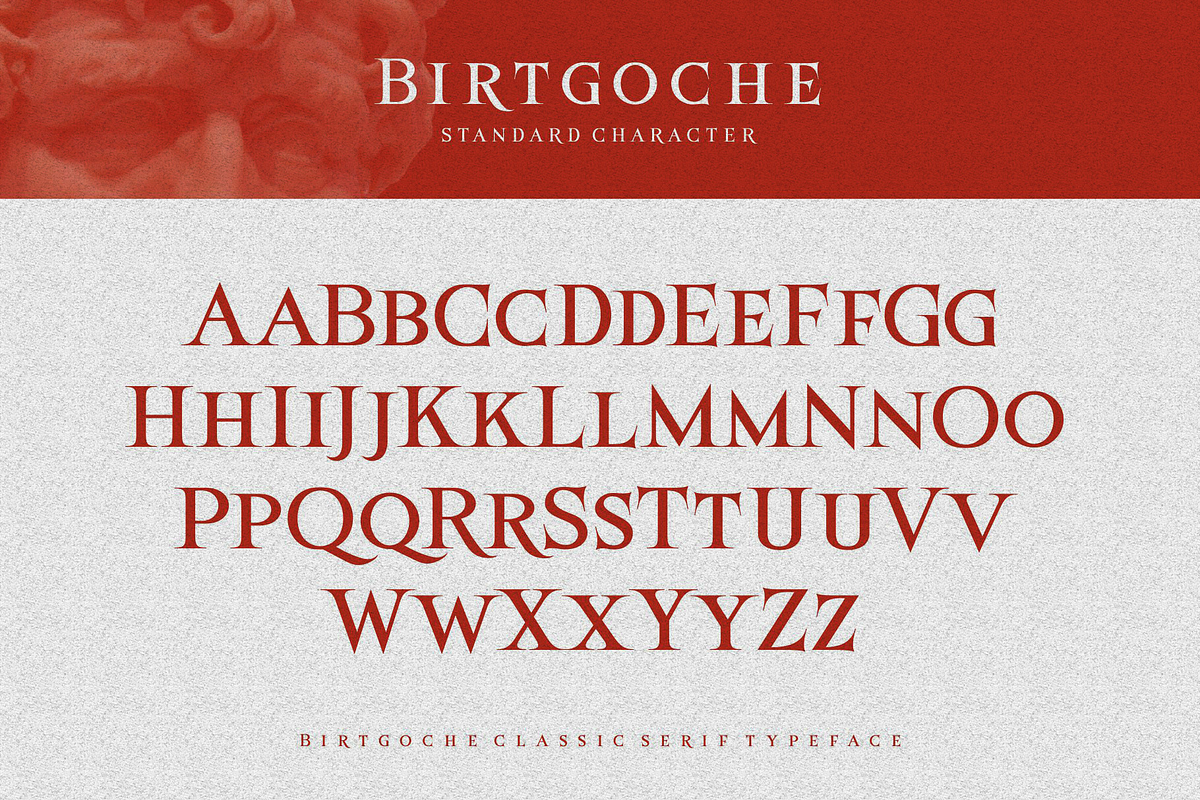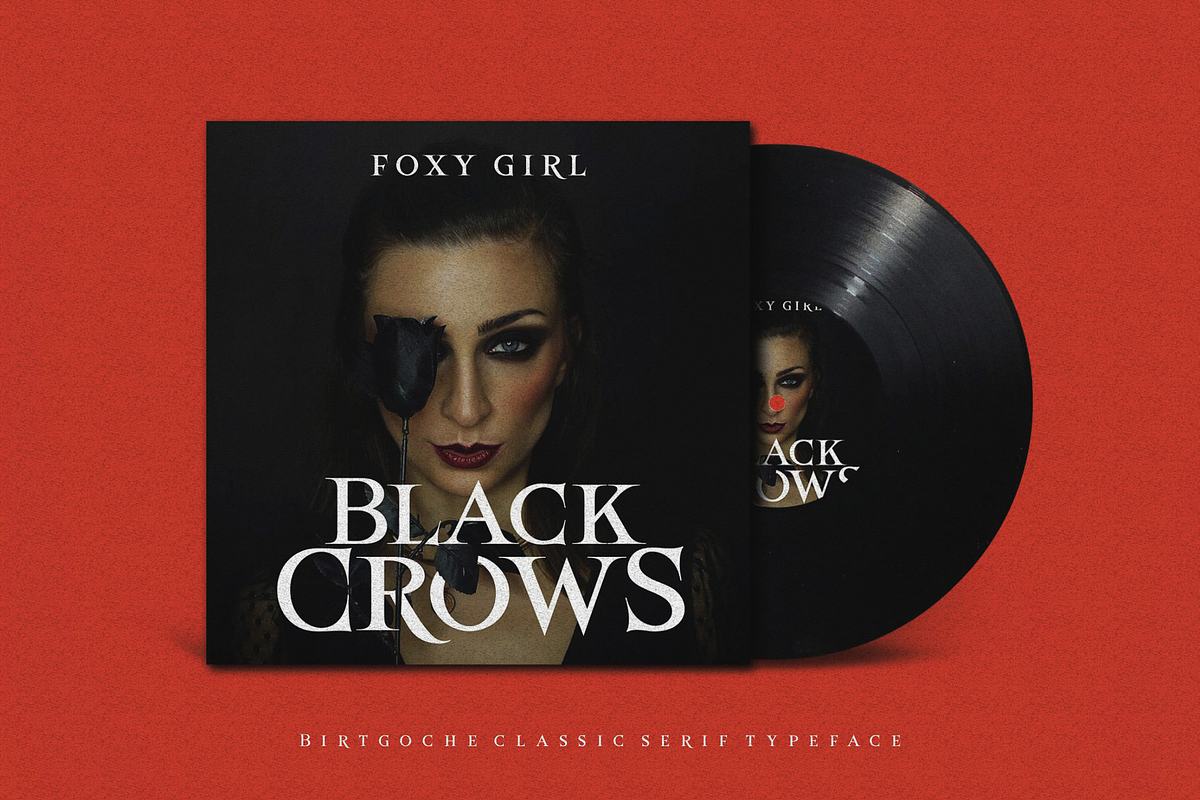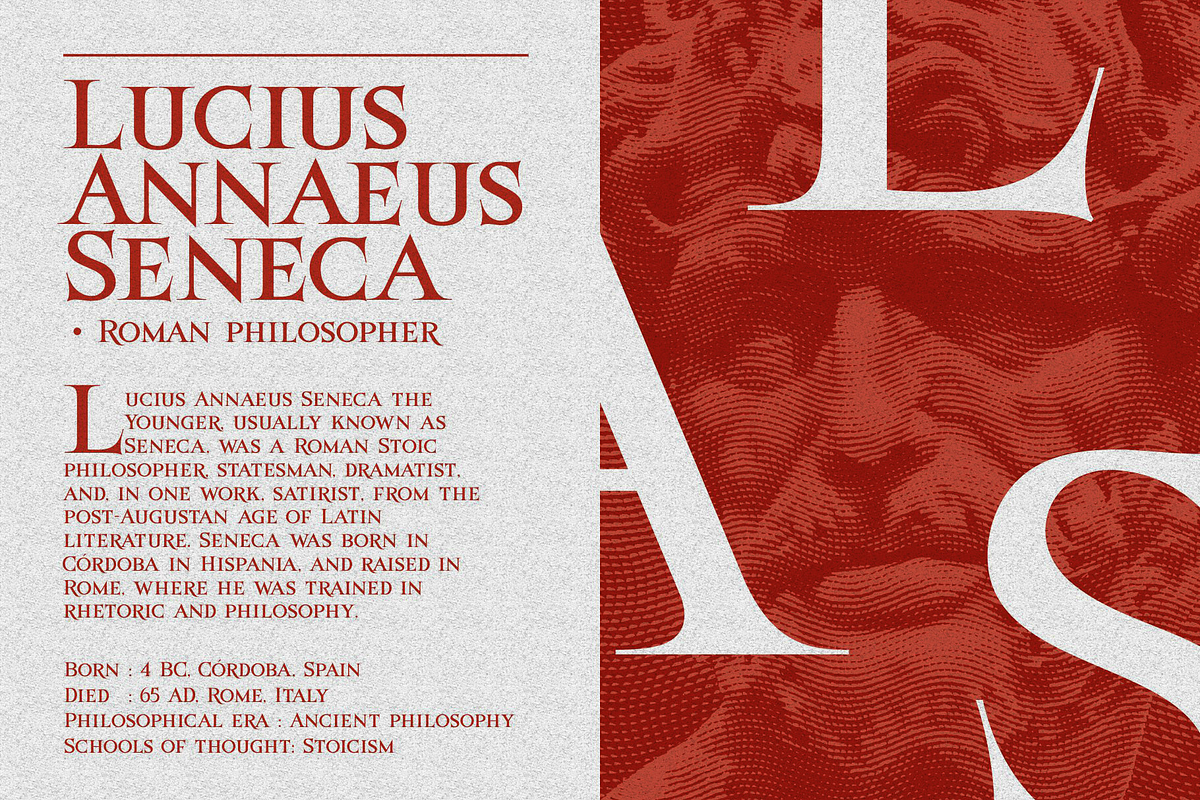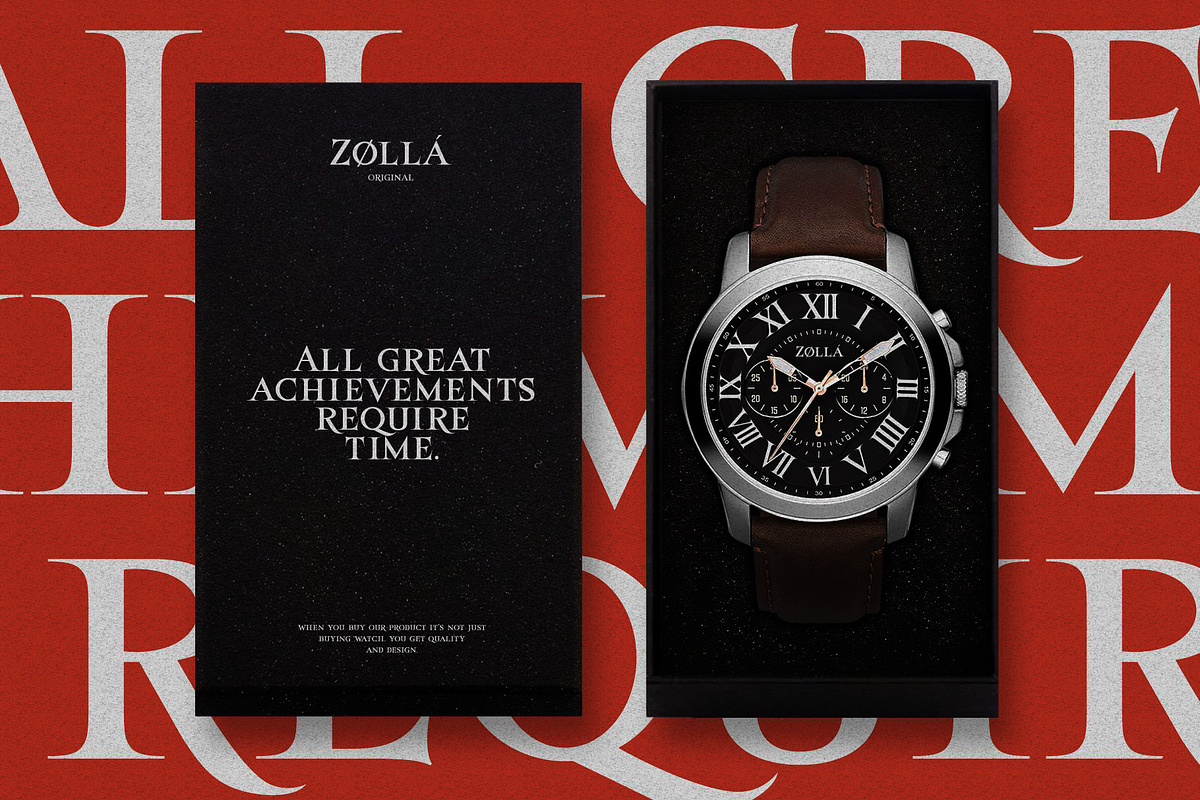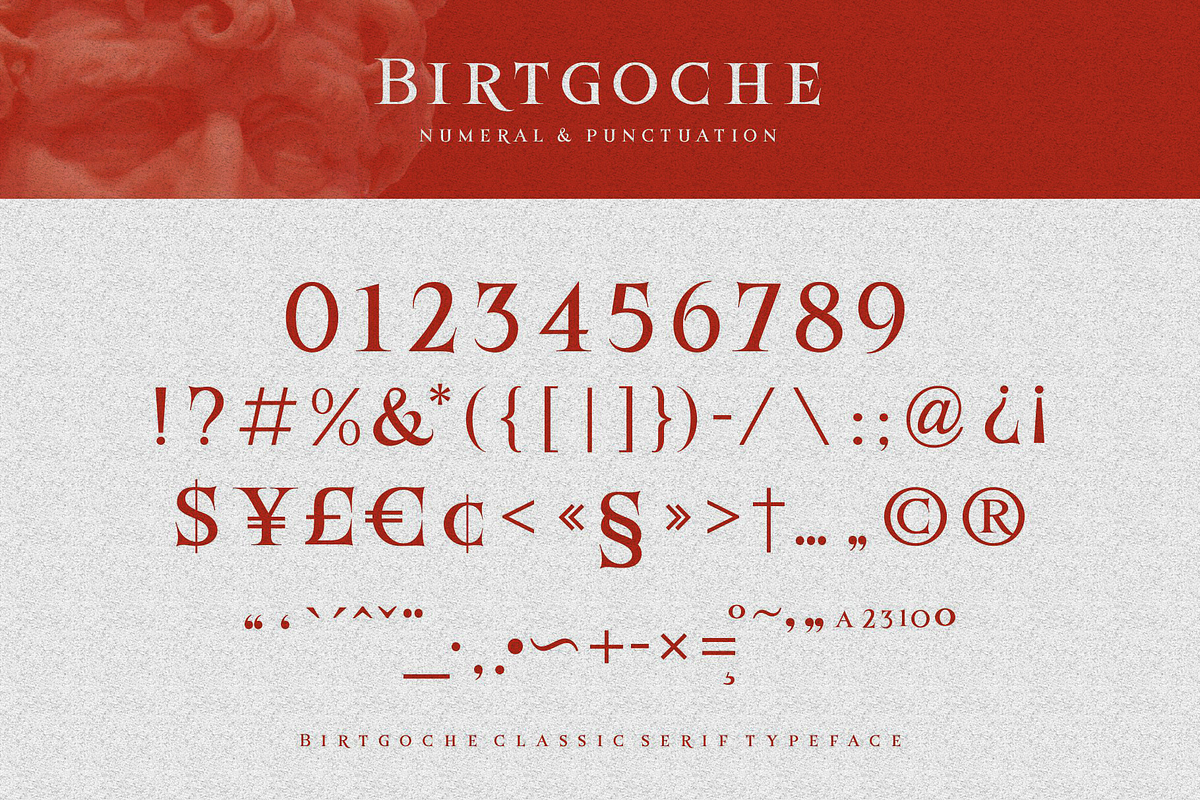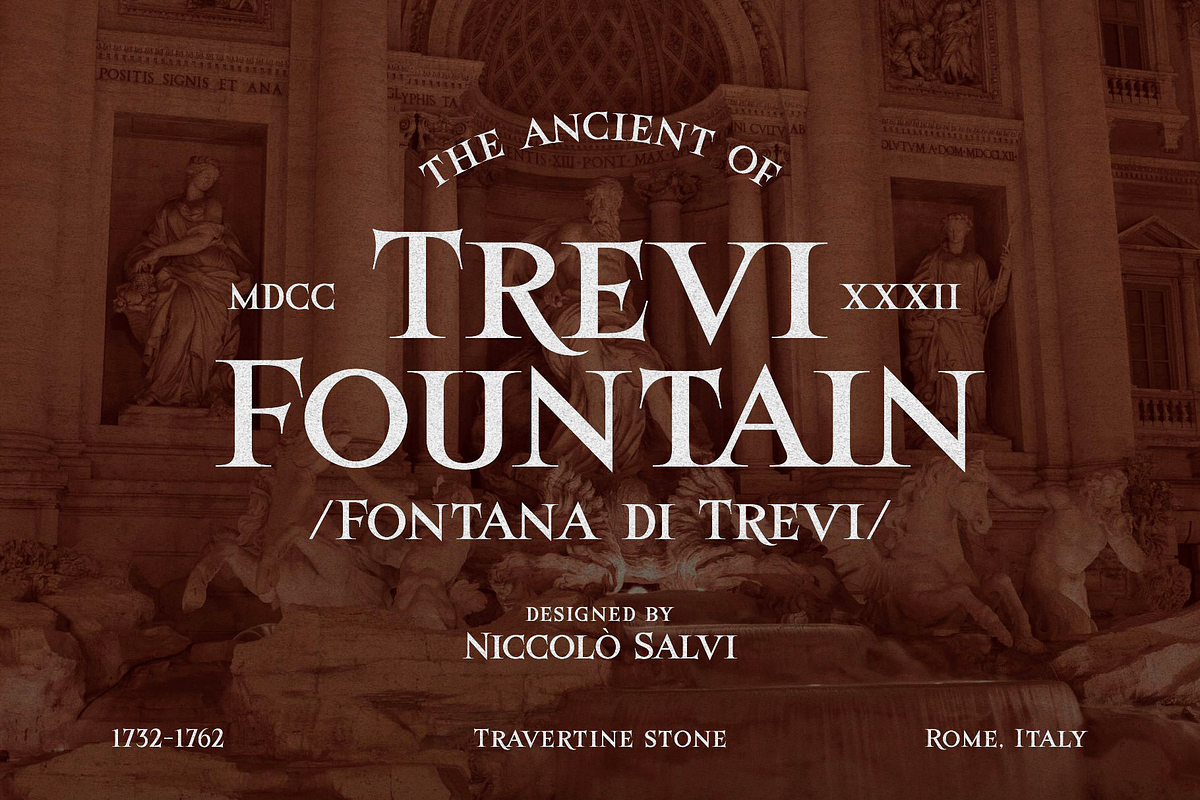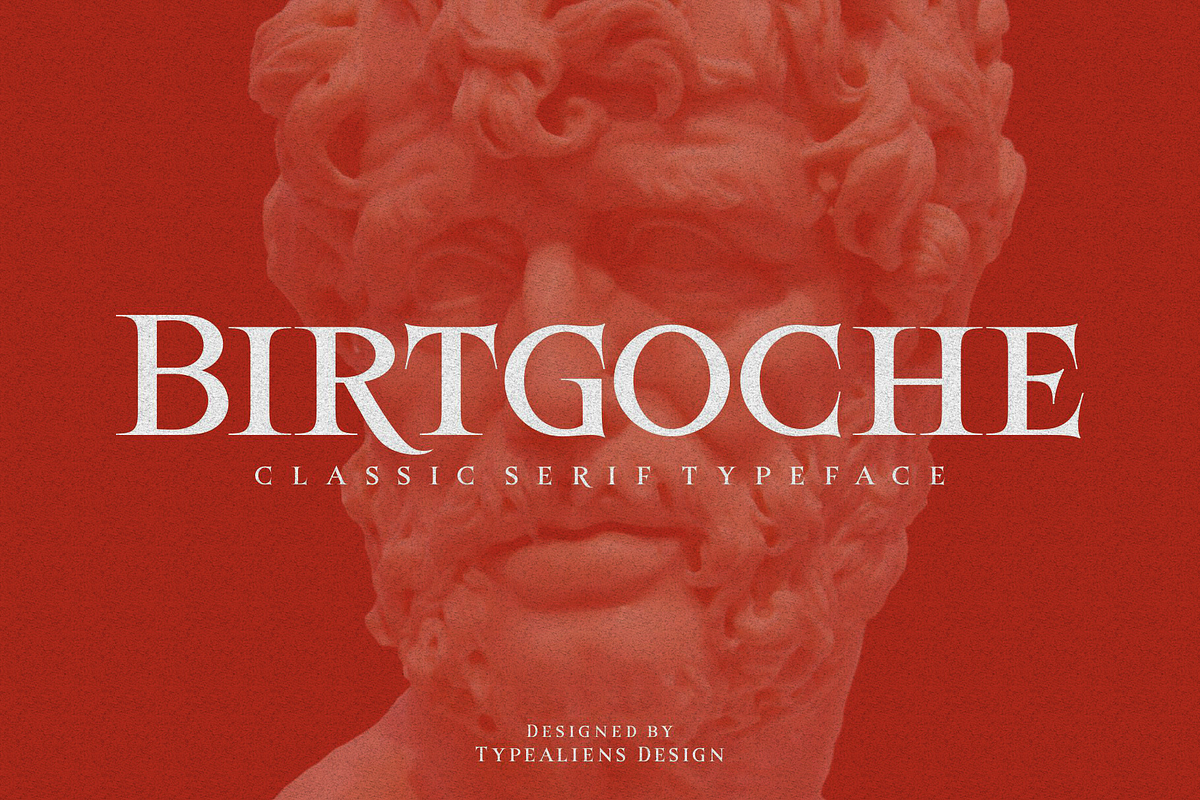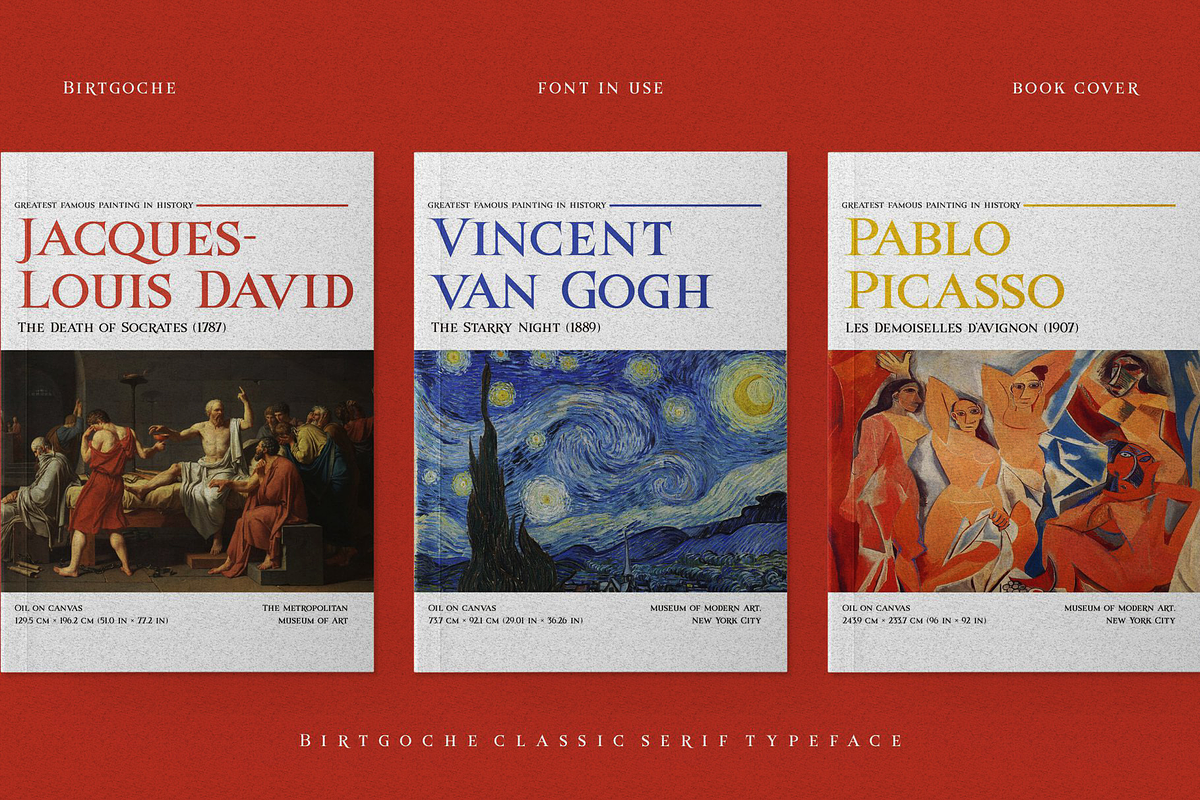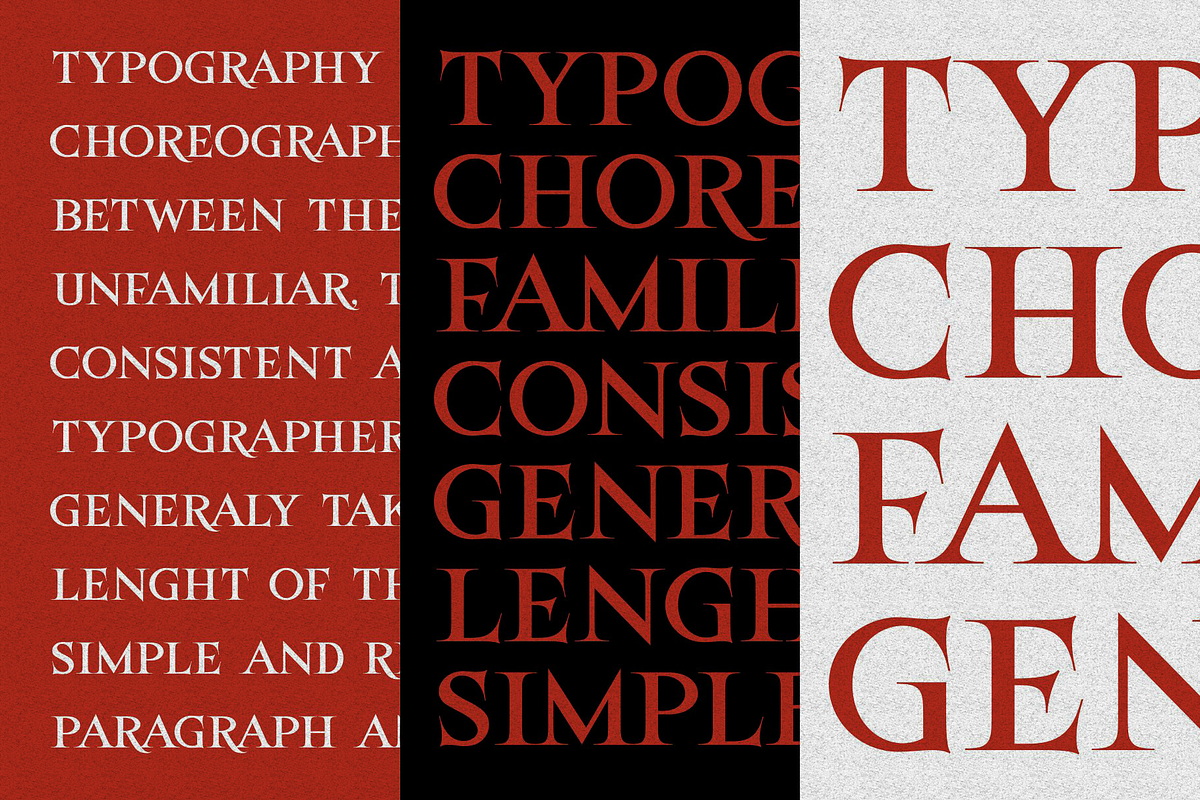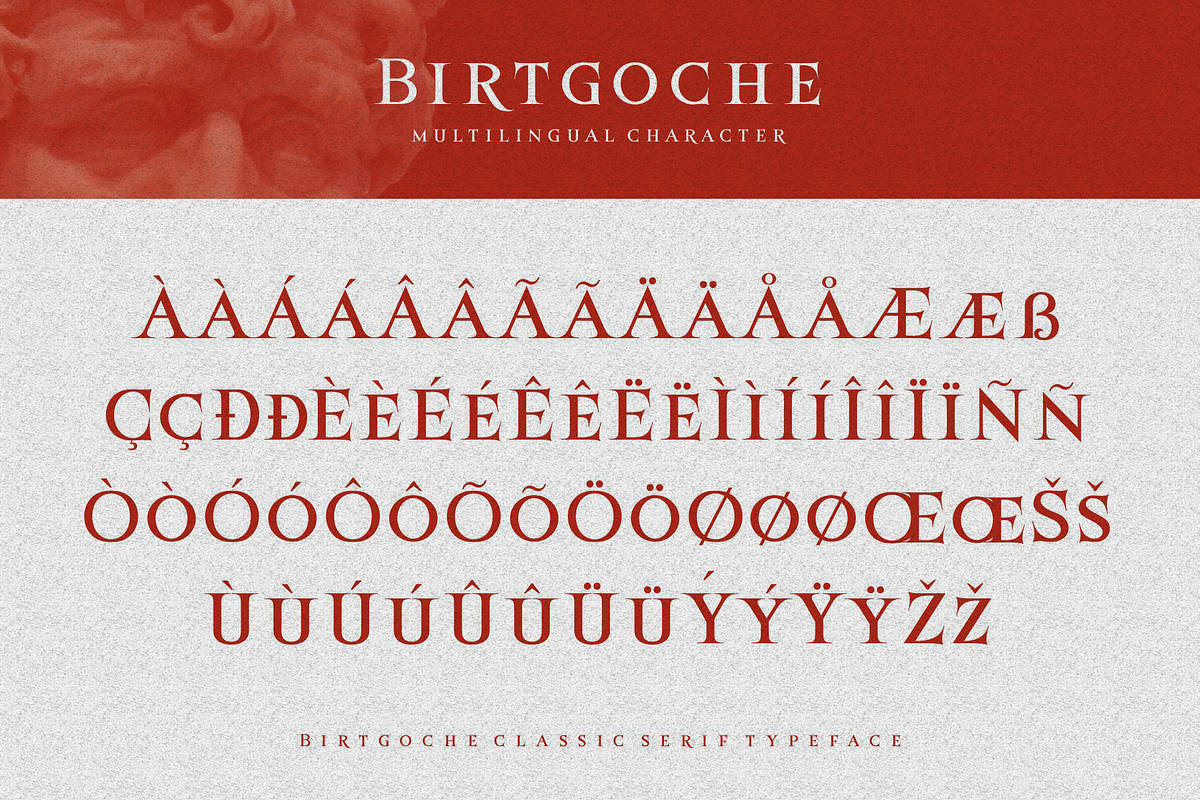
Birtgoche
BIRTGOCHE
Birtgoche is a serif font with long, thin hooks, it's beautiful because it's quite formal and manly. Attractive fonts to support elegant art designs. A fairly standard serif font because there are not many changes from the basics of the previous serif fonts, only the modifications to the hooks are not too significant and some letters have their body part below the baseline. For media, it will also be very suitable for the headline of a magazine or poster because this font has a strong character supported by this font, which is an all caps font.